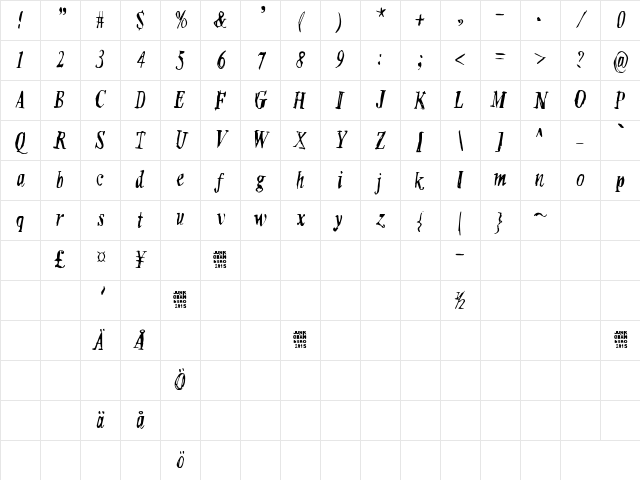
Six feet under Regular
Design Context for Six feet under
Six feet under is a composed and adaptable typeface that performs quietly and consistently across a wide range of design contexts.